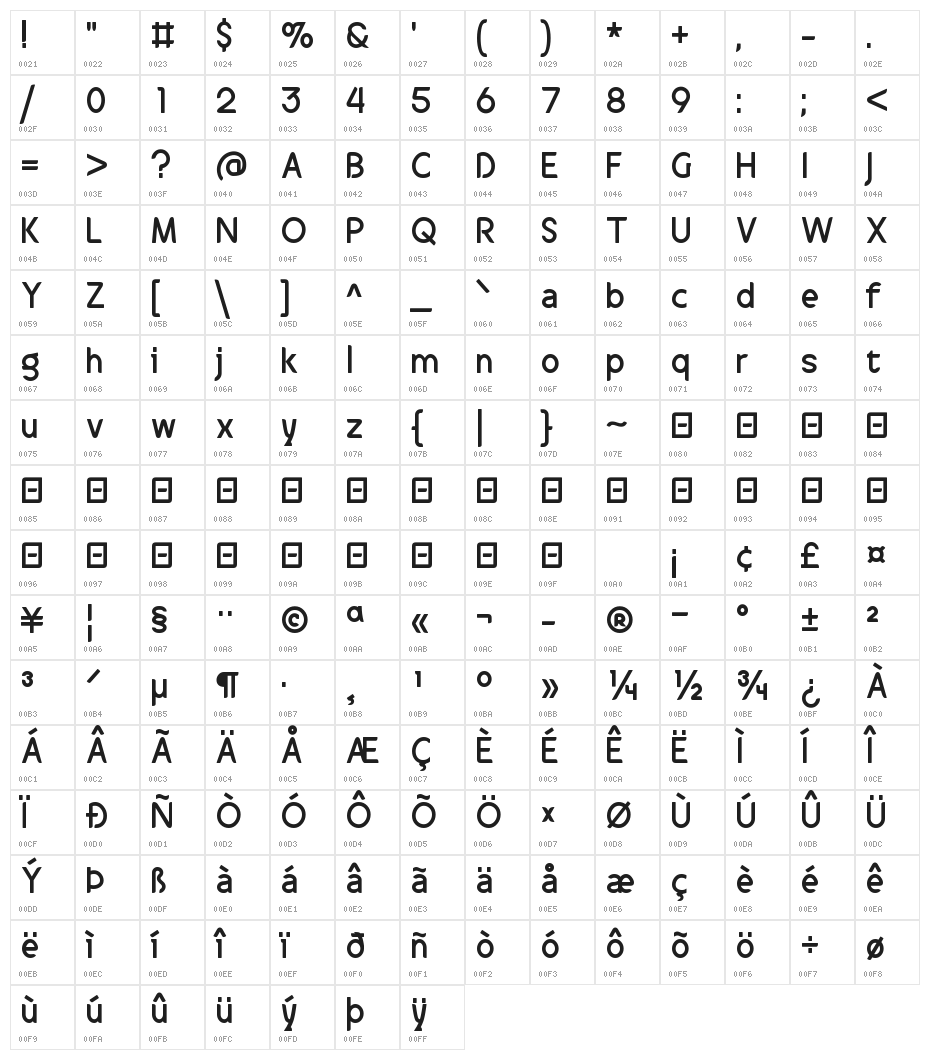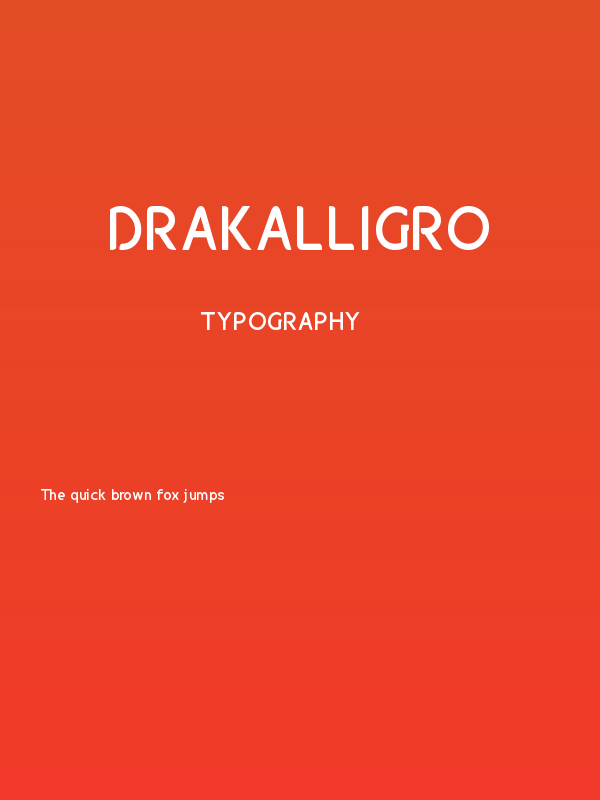
Drakalligro Font
Drakalligro Description
This font features a clean and modern sans-serif style with rounded edges that give it a friendly and approachable appearance. The characters are evenly spaced, contributing to its readability. The uppercase letters are bold and slightly condensed, while the lowercase letters maintain a consistent height, enhancing the uniformity of the text. The numerals are clear and distinct, making them easily legible. Special characters are well-integrated, maintaining the overall aesthetic of the font. The smooth curves and lack of sharp angles make it suitable for a variety of design applications, from digital interfaces to print media.